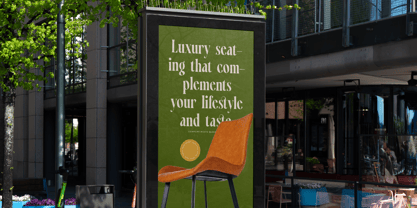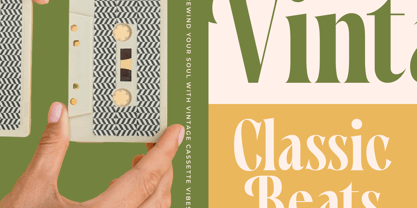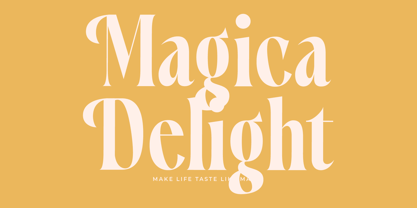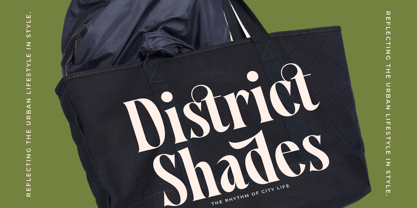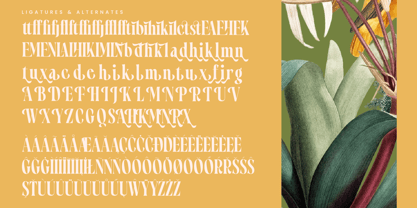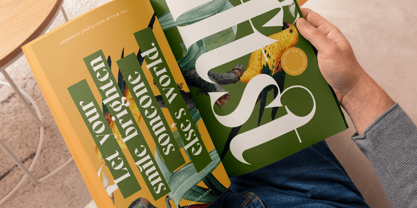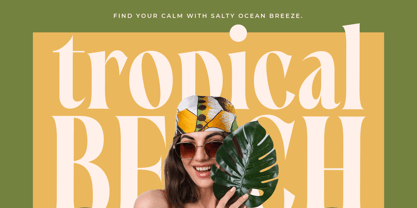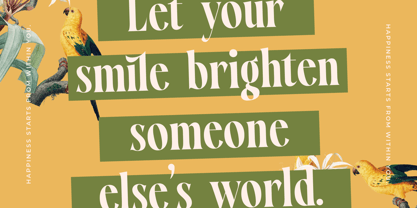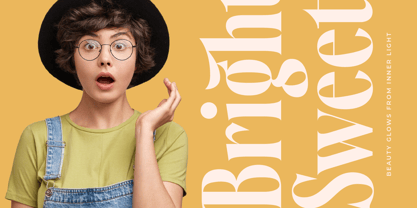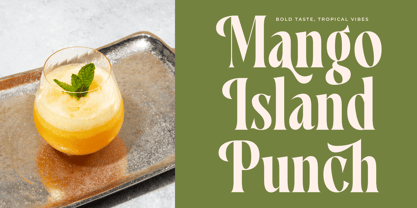
Qastife
by Timelesstype Studio
The Qastife Font Family was designed by Heru Utama Putra and published by Timelesstype Studio. Qastife contains 2 styles and family package options. More about this family
Qastife - Modern Serif Font , from Timelesstype , Suitable for any projects such as: logos, branding projects, homeware designs, product packaging, mugs, quotes, posters, shopping bags, t-shirts, book covers, name card, invitation cards, greeting cards, label, photography, watermark, special events, and all your other luxury and beautiful projects that need a Luxury Serif taste.
Qastife